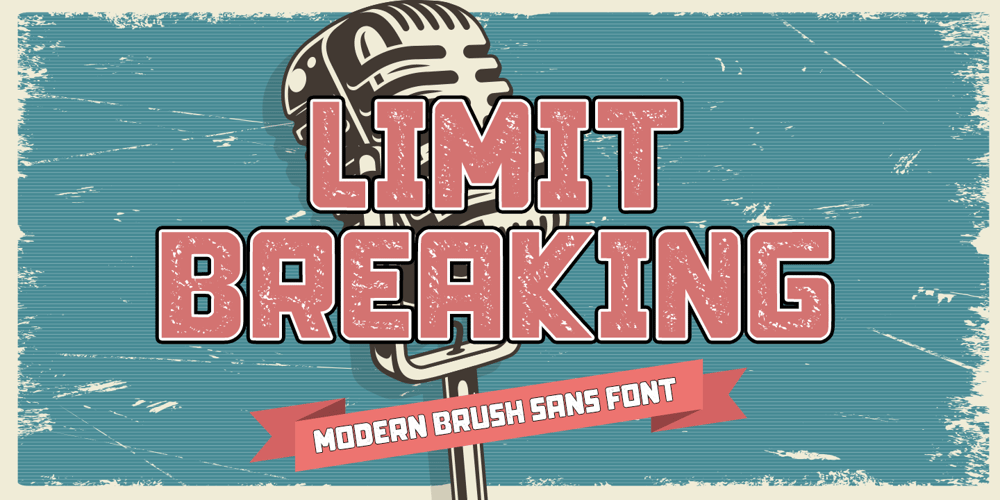
Limit Breaking Font Family was designed by Thomas Aradea and published by Letterara. Limit Breaking contains 2 styles and family package options. Limit Breaking is natural dry brush font. this font has a striking look and a good flow font that can add style to your designs. It’s perfect for logos, quotes, posters, clothing, advertising, packaging, and every other design which needs a unique touch. This font is PUA encoded which means you can access all of the glyphs with ease!